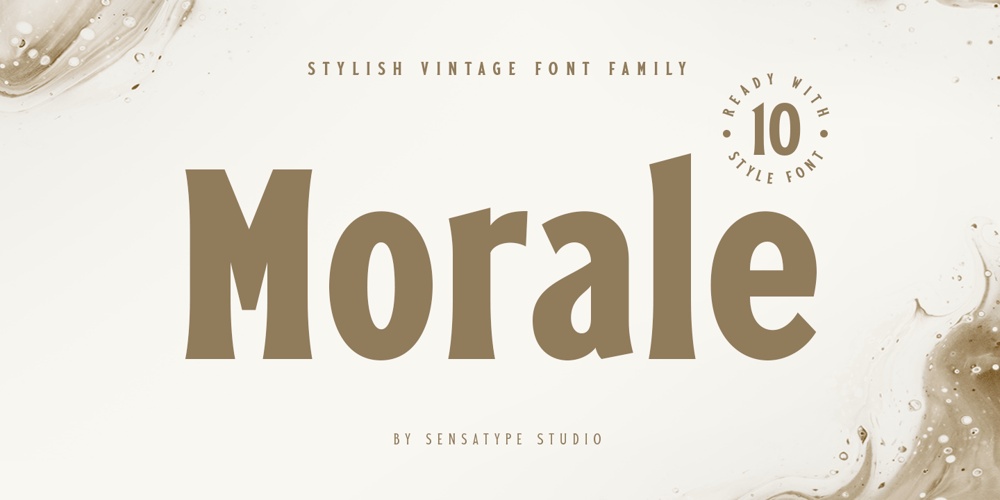
Morale Font Family was designed by Zamroni Hamzah and published by Sensatype Studio. Morale contains 10 styles and family package options. Morale Stylish Vintage Font Family is a well-balanced contemporary font with a Modern, unique, and versatile heritage vintage font that you can combine to get any variations and unique shapes easily just in seconds. It is a serif font with several weights that perfect for branding projects, logo, wedding design, social media post, advertisement, product packaging, product design, label, photography, watermark, invitation, stationery, and any projects, it makes with a high level of legibility.What’s Included: Morale Regular font (5 Weights) Morale Italic font (5 Weights) Character set A-Z Uppercase & Lowercase Numerals & Punctuation Accented Characters (West Europe) Works on PC & Mac Recommended using Adobe Illustrator or Adobe Photoshop. Wish you enjoy our font. ๐